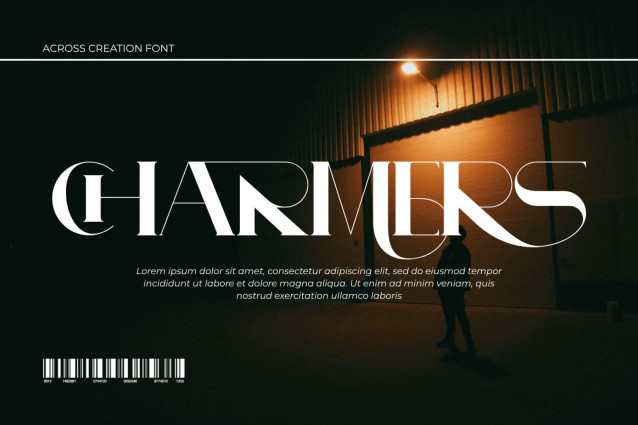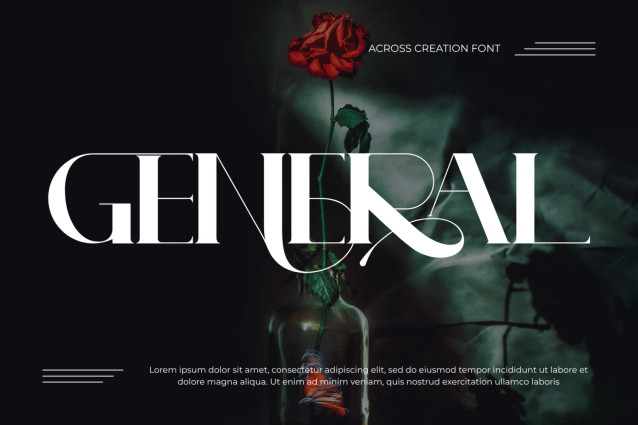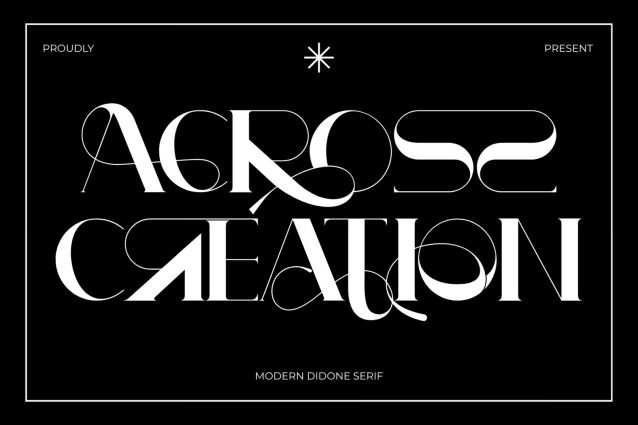
ACROSS CREATION FONT
ACROSS CREATION FONT– Modern High-Fashion Serif & Avant-Garde Experimental Display Font is a spellbinding, avant-garde display serif font crafted at the intersection of high-fashion editorial typography, geometric wireframe art, and experimental luxury design. Defined by its extreme stem contrast, sweeping hairline circular loops, and bold architectural letterforms, this typeface effortlessly turns standard headlines into museum-worthy graphic masterpieces.
Inspired by the refinement of modern editorial typography while embracing an avant-garde approach, ACROSS CREATION transforms familiar serif forms through elongated terminals, oversized curves, delicate loops, and unexpected intersections. The contrast between restrained classical details and expressive ornamental elements gives the typeface a sophisticated yet artistic personality.